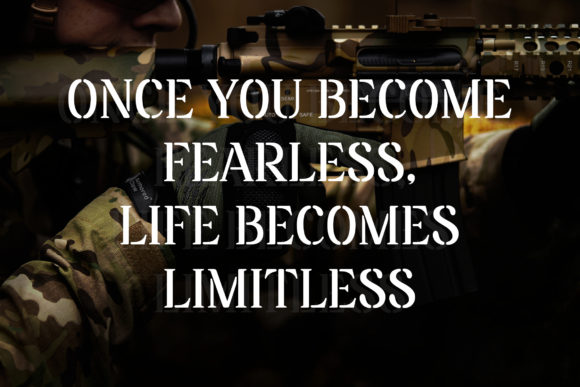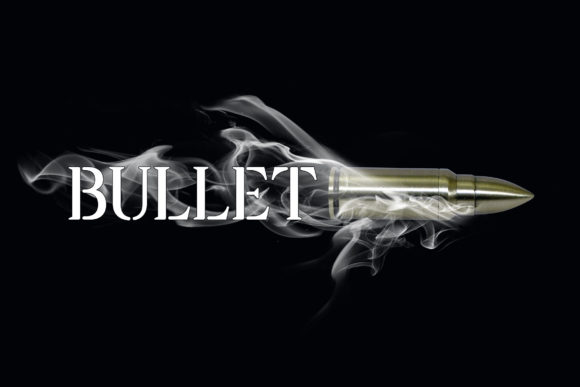
Introduction to Portway Font
Have you ever found yourself staring at a blank canvas, searching for the perfect font to bring your creative project to life? The struggle is real, especially when you’re working on a design that requires a statement piece. That’s where the Portway Font comes in – a bold serif font that’s sure to make your design stand out.
| 👤 Author | Typia Nesia |
With its unique blend of abstract shapes and eclectic beauty, the Portway Font is a game-changer for designers looking to add a touch of sophistication to their work. Whether you’re working on a high-quality brochure, a website, or a social media campaign, this font is sure to make a lasting impression.
Key Features of Portway Font
- High-quality design resource suitable for various creative projects.
- Features a transparent background, allowing for effortless background removal.
- Comes in a single weight, making it perfect for simple, yet elegant designs.
- Unique characteristics include a modern, minimalist aesthetic and clean typography.
Honest Review: Portway Font
I recently stumbled upon the Portway Font while searching for a unique design resource for my creative project. I was impressed by its high quality and versatility. The font is available for a free download, making it an excellent choice for designers on a budget.
What works well: ✨ The Portway Font is highly customizable, allowing designers to easily adjust the style and feel to suit their needs. It’s also available in a transparent background option, which makes it perfect for overlaying text on images or videos.
- Customizable style
Tips for Getting the Most Out of Portway Font
To get the most out of the Portway Font, use it in combination with other design resources. Experiment with different font sizes, colors, and styles to create a unique design. Also, use the font in conjunction with a transparent background to create a modern look.
Common Use Cases for Portway Font
The Portway Font is commonly used in branding, marketing materials, and creative projects. It’s ideal for creating a professional and modern look in your designs.